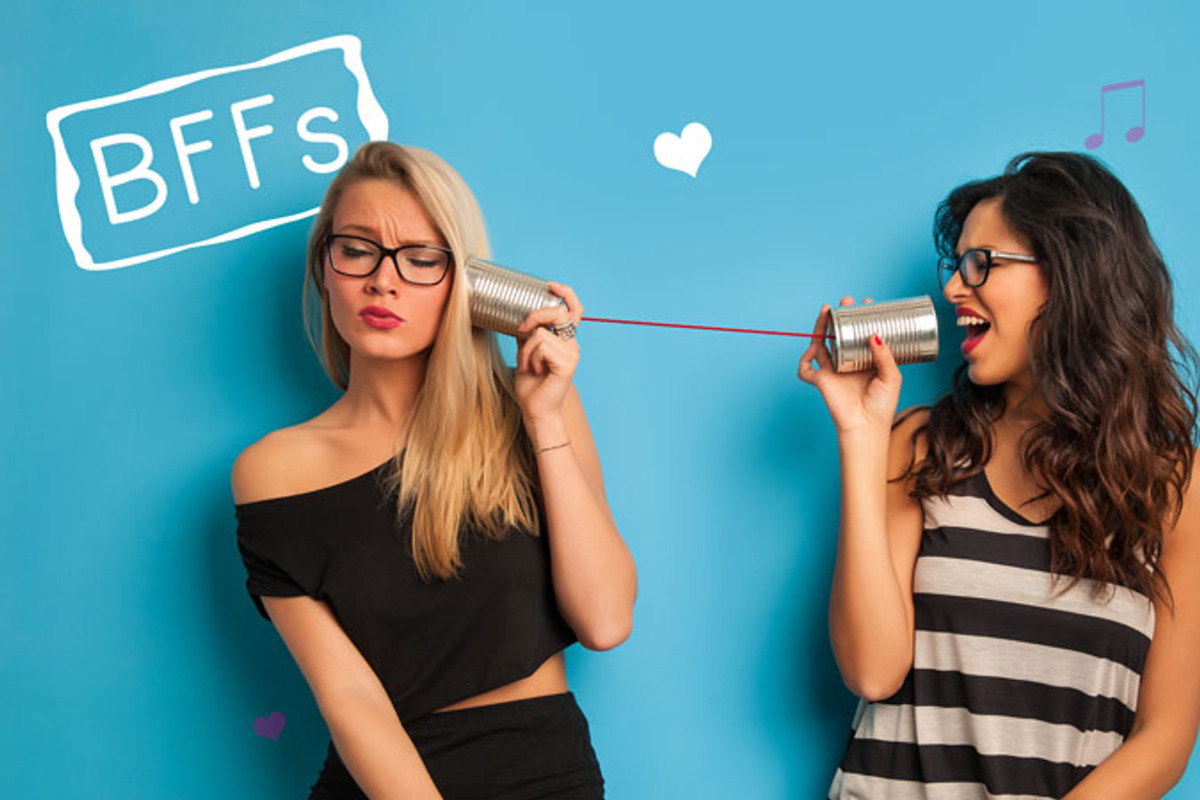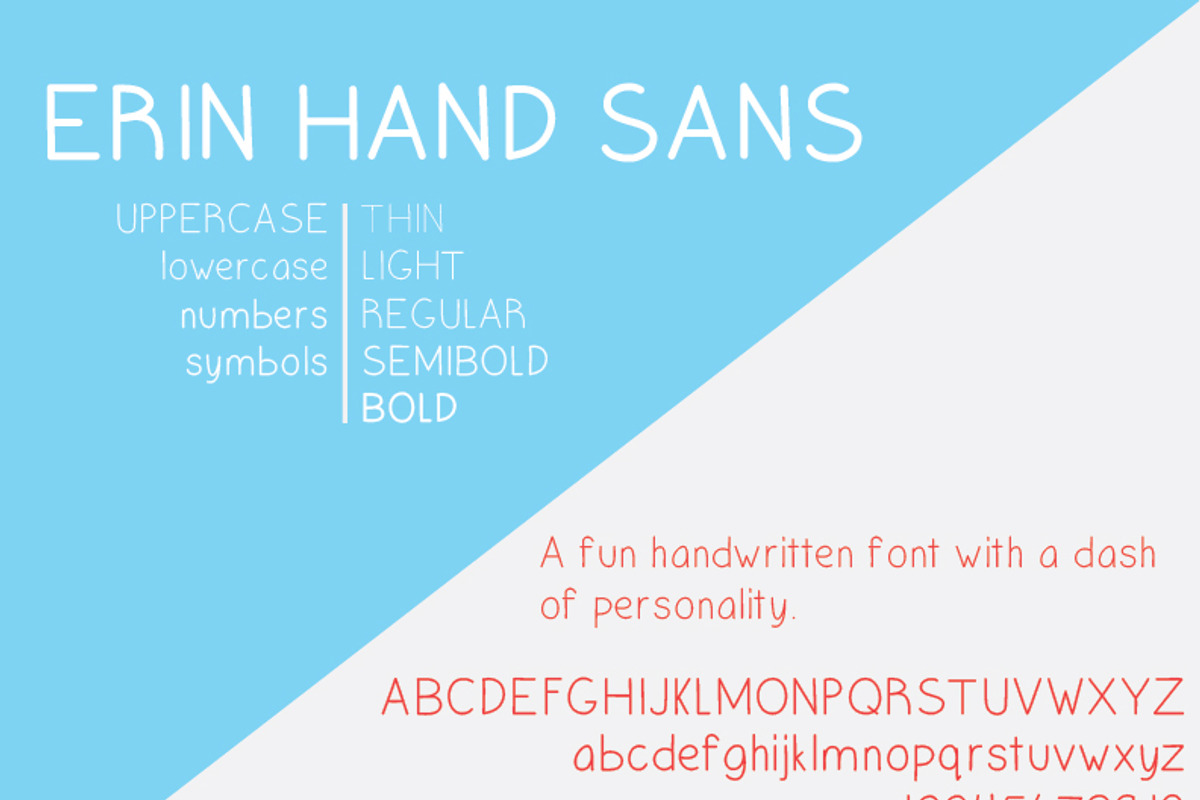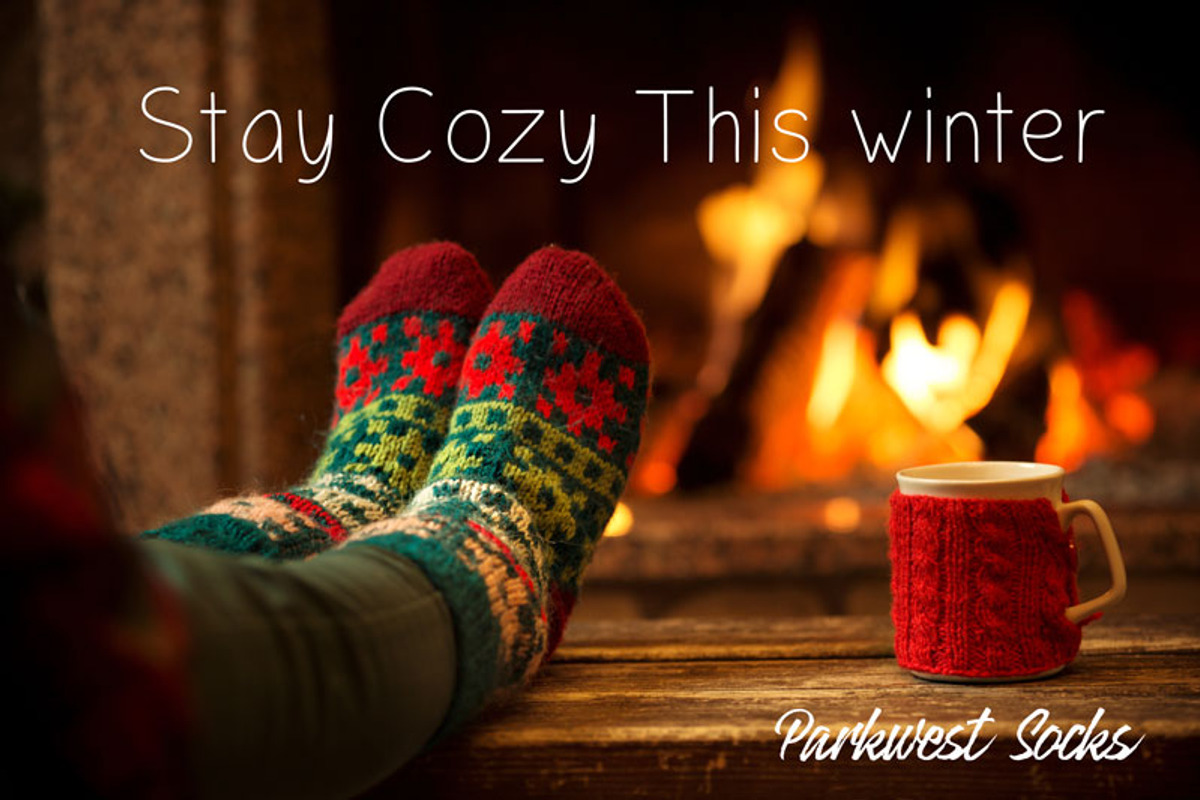
Erin Hand Sans Font Family
This little font packs a lot of character! The letters and shapes are playful and dance across your page. This family includes 5 weights, upper and lowercase letters, numbers, symbols and some extended latin characters. More coming soon in future (free) updates.